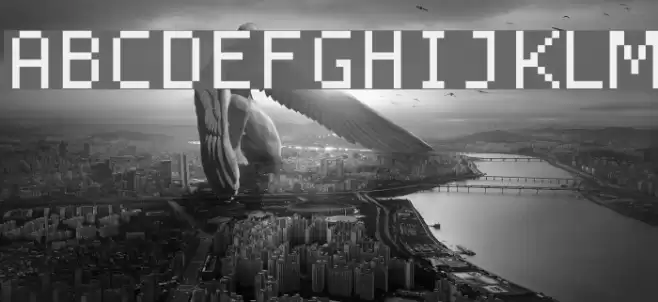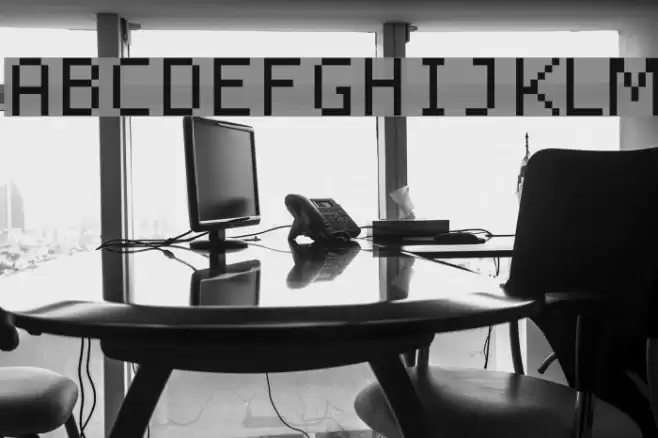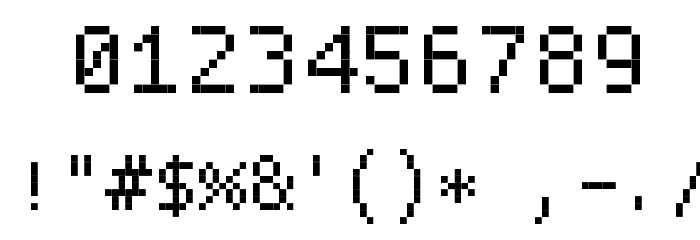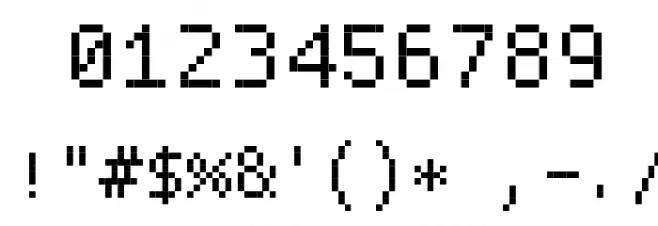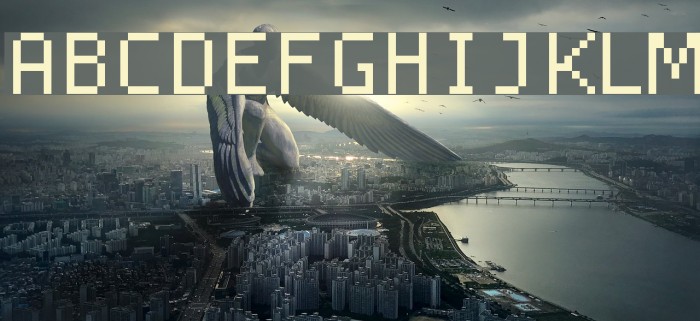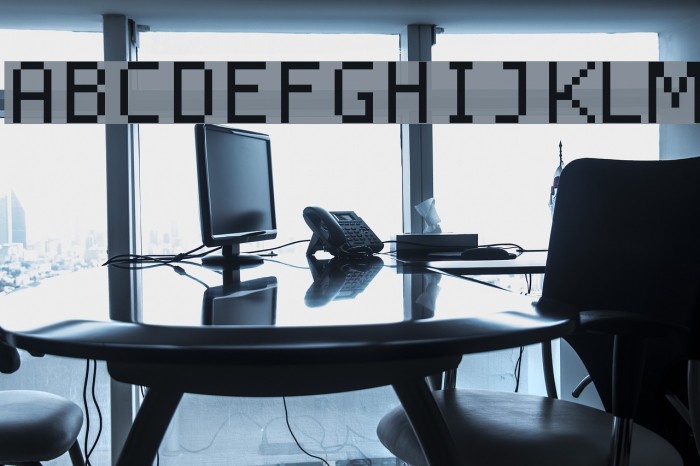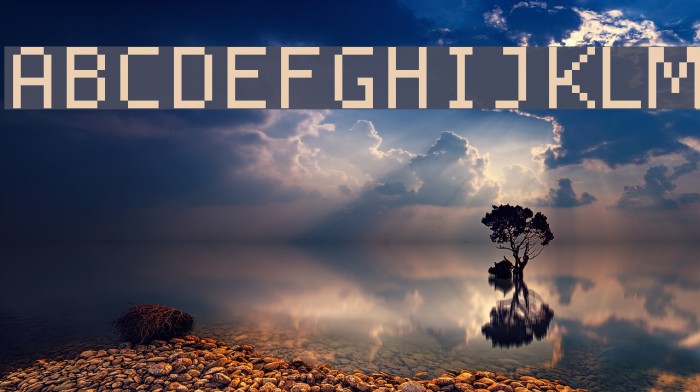
ProggySquareTTSZ Font
ProggySquareTTSZ Description
This font features a pixelated, monospaced design reminiscent of early computer and video game graphics. Each character is constructed with a grid-like precision, giving it a distinctly digital and retro appearance. The uniformity in width and height across all characters ensures a consistent and orderly look, ideal for coding environments or projects that require a vintage digital aesthetic. The font's simplicity and clarity make it highly legible, even at smaller sizes, while its blocky style adds a touch of nostalgia. Special characters and numbers are designed with the same pixelated approach, maintaining the cohesive style throughout.
A pixelated, monospaced font with a retro digital aesthetic from Pixel fonts.
- Proposed Projects: Ideal for coding, retro video game design, digital art projects, or any creative work that seeks a vintage computer style.
- Overall Style: Vintage
- Use Case: Coding, Digital art, Retro design